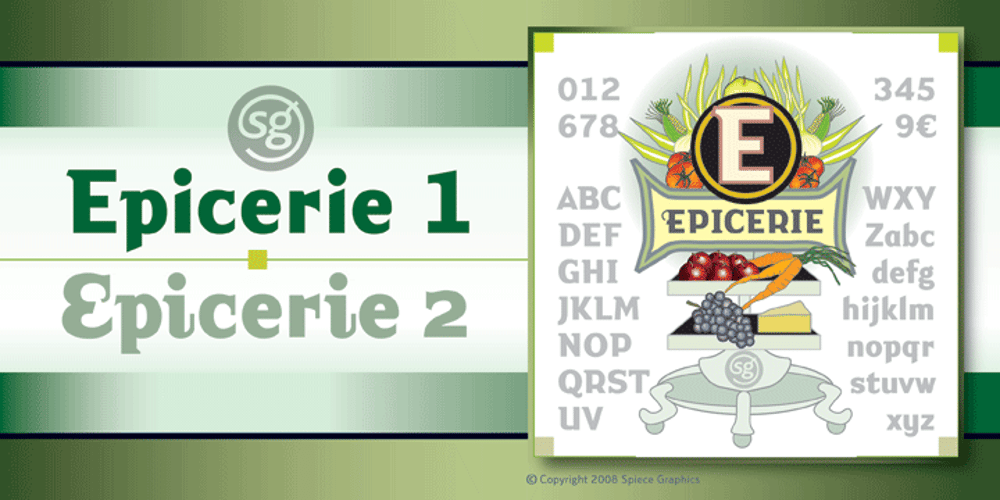
Epicerie One & Two SG
Epicerie One & Two SG font
Epicerie One & Two SG Font Family was designed by Jim Spiece and published by Spiece Graphics. Epicerie One & Two SG contains 2 styles and family package options. This typeface is derived from capital letters found on an old grocery store sign in southern France. The word épicerie means grocery in French. Epicerie’s personality remains mostly in the past with a few spontaneous contemporary nuances. It comes bundled in two convenient styles: Epicerie One for general use and Epicerie Two for fancy occasions. You might try combining characters from both fonts to produce captivating headlines or unique logotypes. Magnifique! Epicerie One & Two is also available in the OpenType Std format. Some new alternate characters have been added to this OpenType version. Advanced features currently work in Adobe Creative Suite InDesign, Creative Suite Illustrator, and Quark XPress 7. Check for OpenType advanced feature support in other applications as it gradually becomes available with upgrades.